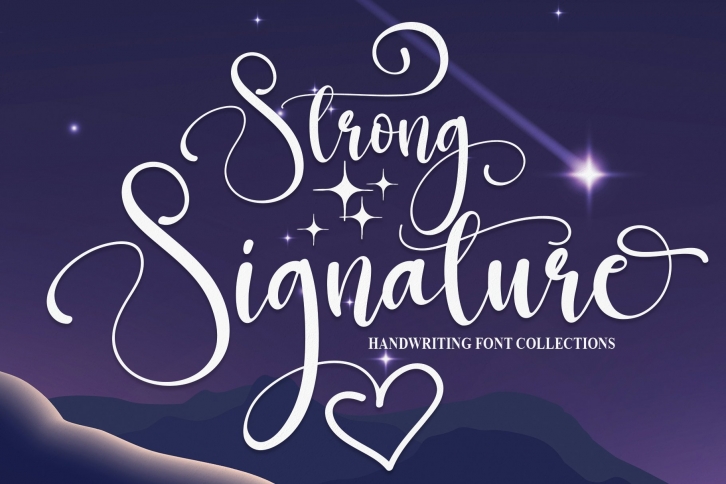
Strong Signature is a great font that was designed by Scratchones. Imagine the amount of combinations you can create using this font! The archive is 10.45 MB and it was released on April 20, 2022. Strong Signature looks beautiful on wedding invitations, greeting cards, logos, posters, labels, t-shirt designs, logos, business cards and is perfect for use in ink or watercolor works, fashion, magazines, packaging and food menus, children's books and more!